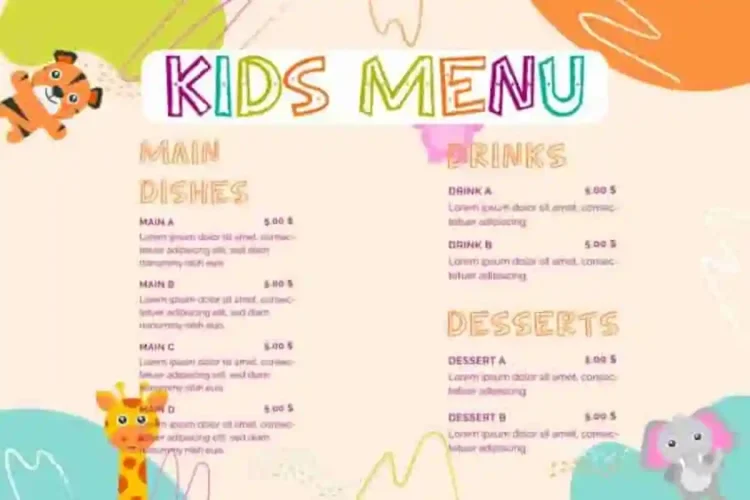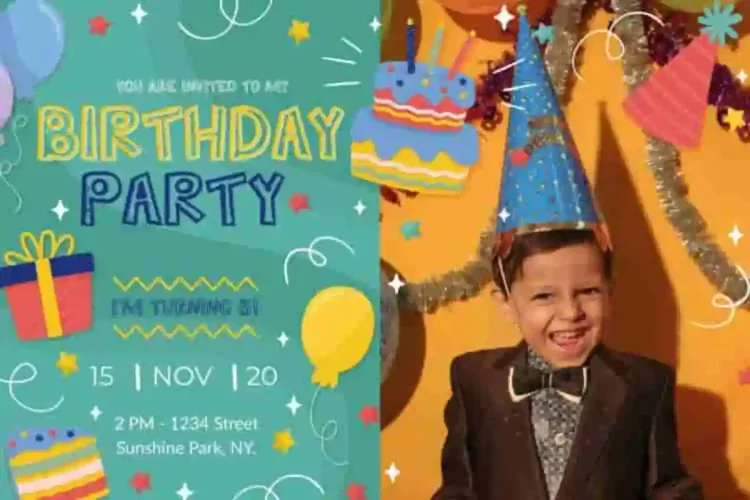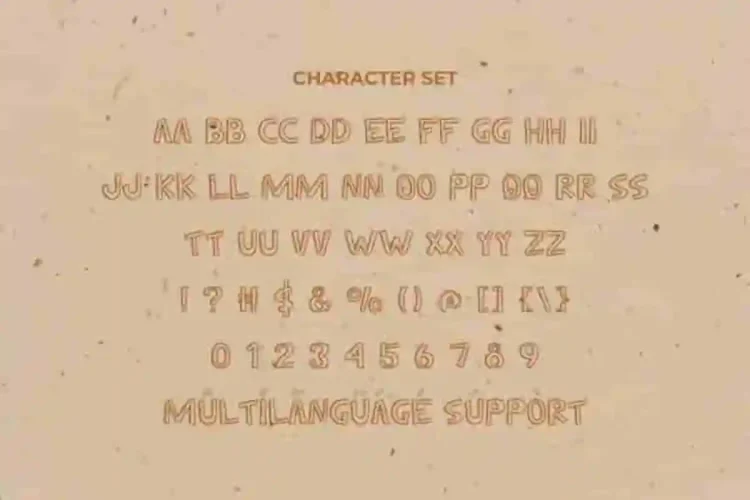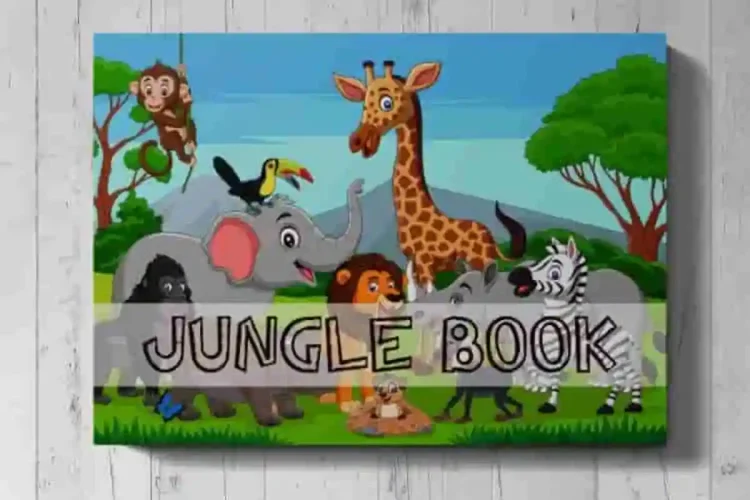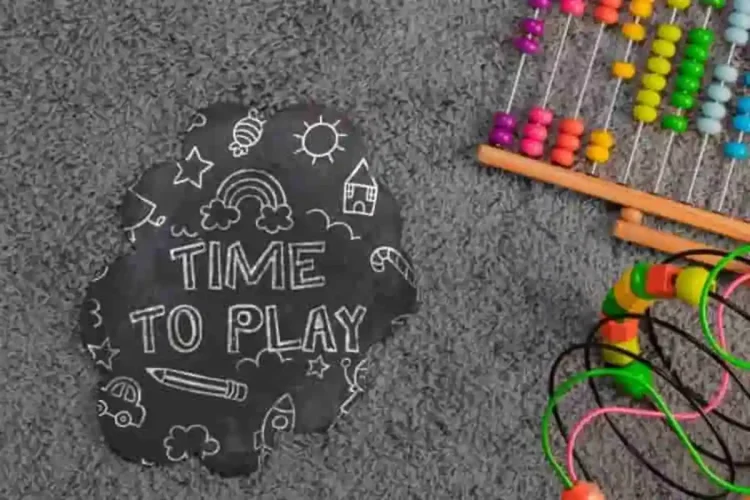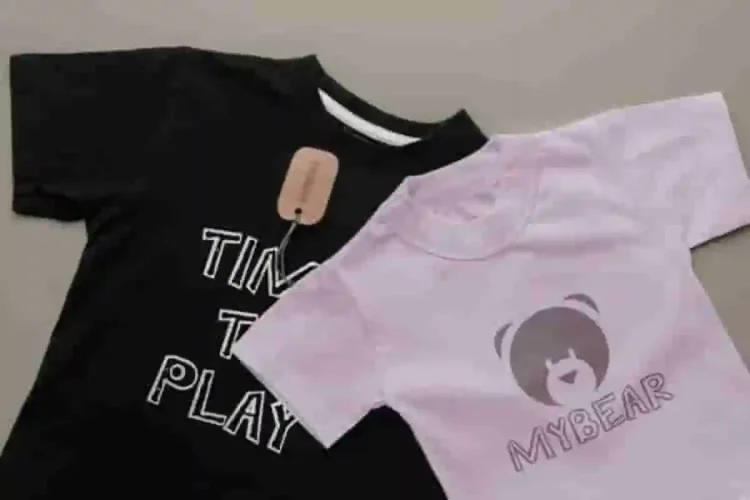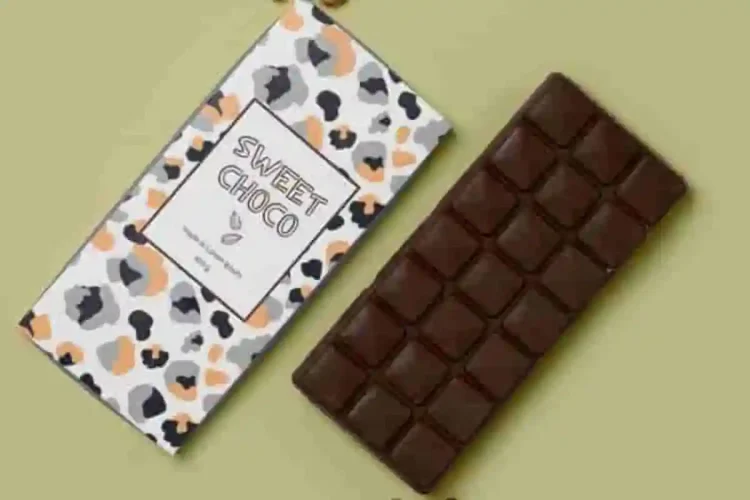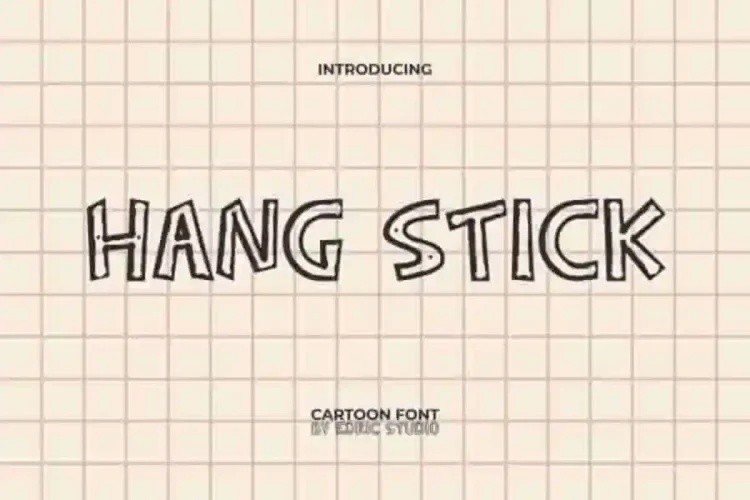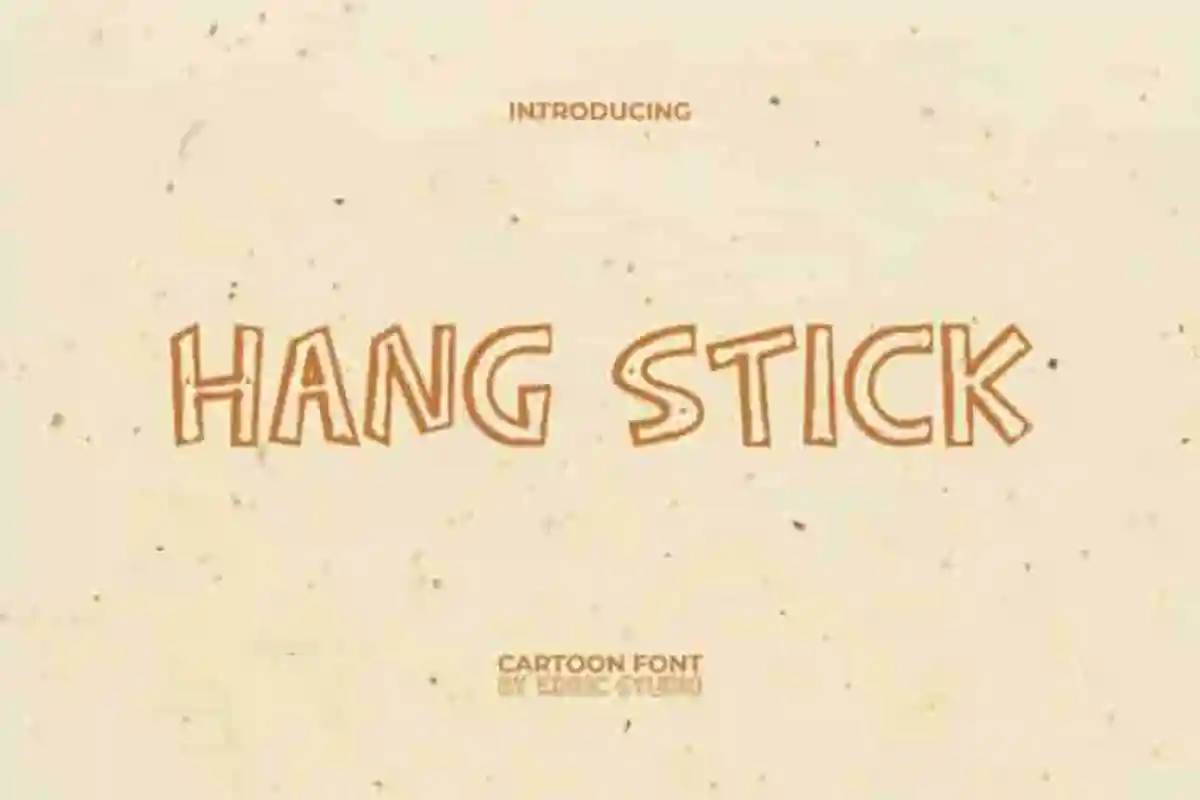
Hang Stick Cartoon Font is a unique cartoon display font that inspired from games. Bringing the fun side of kids makes it perfect for logos, typography, and product labels that need a cheerful style.
Hang Stick Cartoon Font uppercase and Lowercase Letters of the same size, Numbers & Punctuation. Multilingual Support will Work on PC & Mac with Simple installation. Accessible in Adobe Illustrator, Adobe Photoshop, Adobe InDesign, even works in Microsoft Word. Plus, with PUA encoded characters, all alternates and ligatures are available without additional design software.